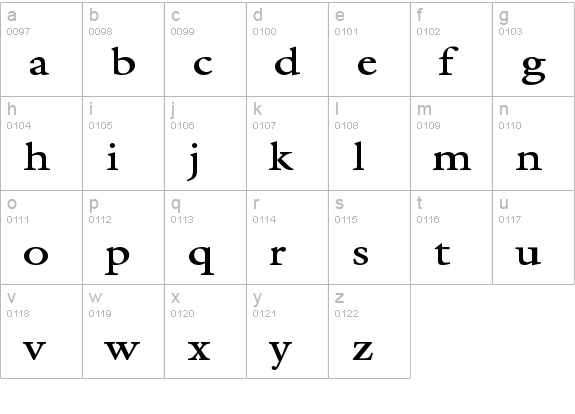
Coverdale-Extended Bold Font Details
Coverdale-Extended Bold is a strong, high-contrast, extended-width variant in the Coverdale typeface family \xE2\x80\x94 well suited to headlines, attention-grabbing titles, and strong calls-to-action.
The Coverdale-Extended Bold font is a striking and modern typeface that commands attention with its bold and extended design. Its strong, clean lines make it perfect for headlines, titles, and other prominent text in both print and digital media. What sets the Coverdale-Extended Bold font apart is not only its boldness but also its versatility. Whether you're designing a sleek corporate brochure, a stylish website, or eye-catching signage, this font will make your text stand out with confidence and sophistication. And the best part? The Coverdale-Extended Bold font is available for free download at FontsMarket.com. So you can elevate your design projects without breaking the bank. Don't miss out on adding this powerful and sleek typeface to your font collection today!